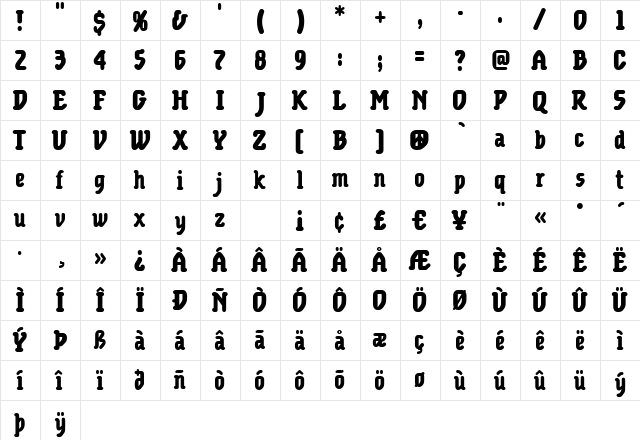
Foam Regular Condensed Regular
Design Context for Foam Regular Condensed Typeface
Foam Regular Condensed is a composed and adaptable typeface that performs quietly and consistently across a wide range of design contexts. The condensed width makes it efficient for tight spaces without sacrificing legibility.